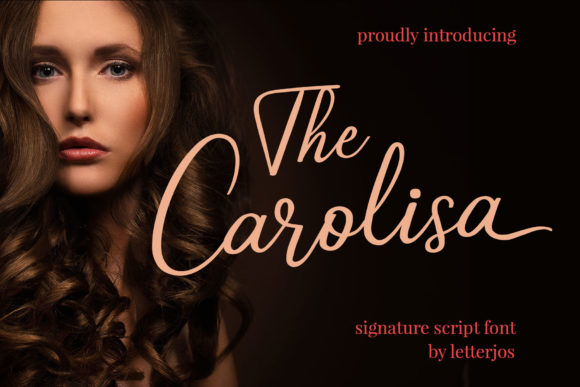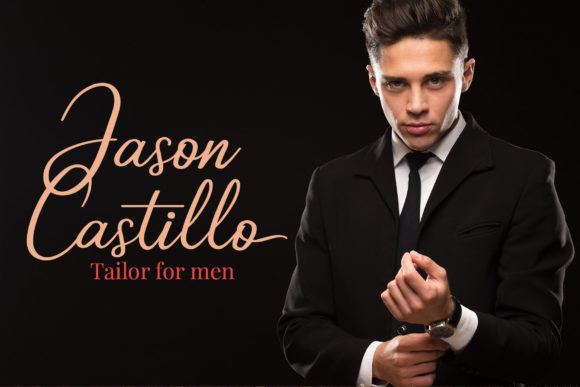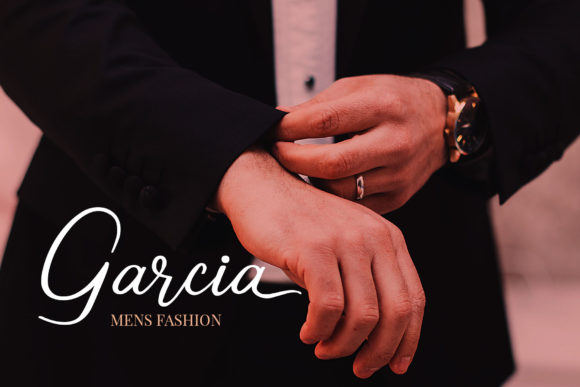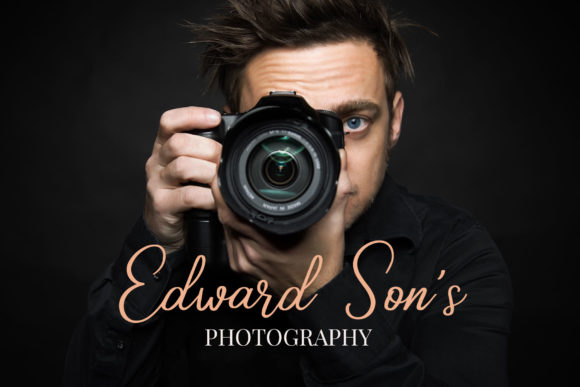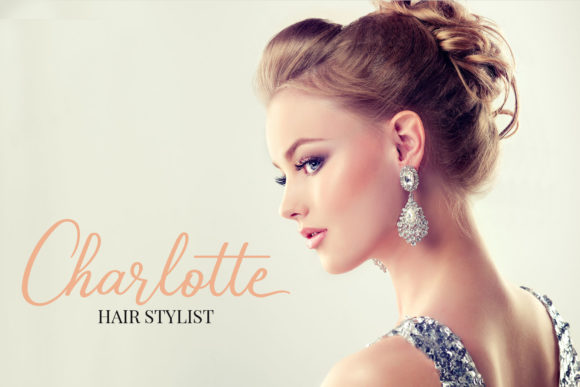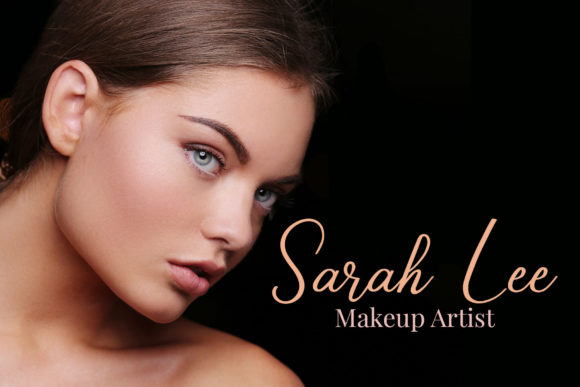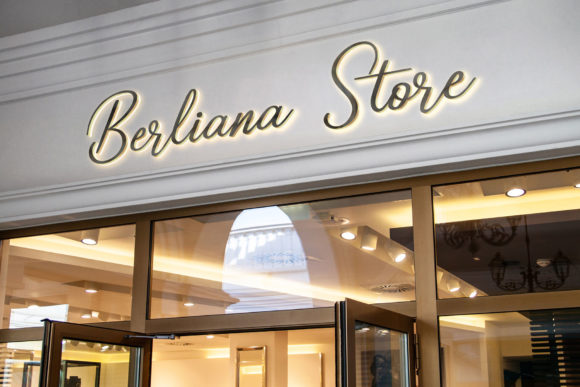
The Carolisa Font
About The Carolisa Font
The Carolisa combines simplicity, beauty, and elegance into one gorgeous signature script. It will be perfect for adding an authentic feel to any design idea!